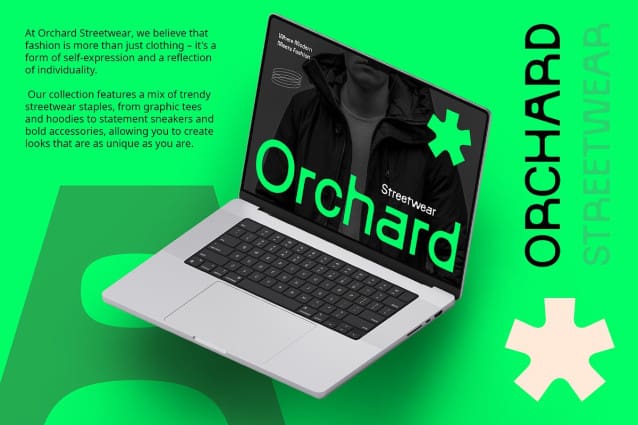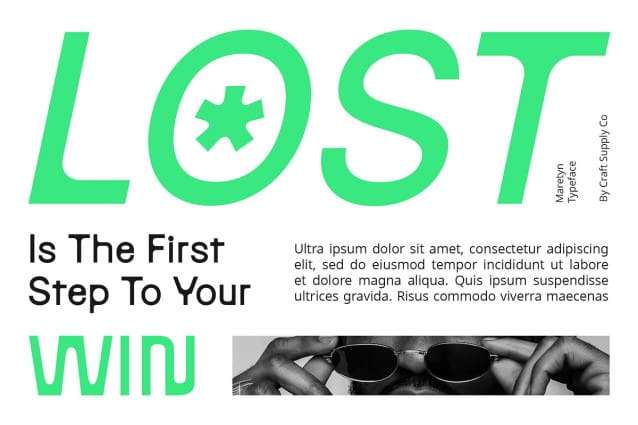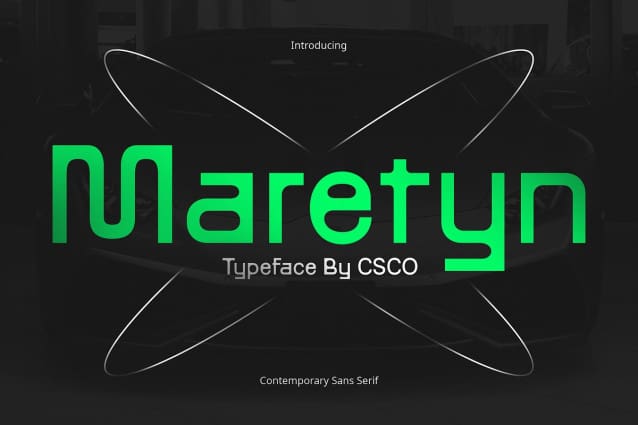
Maretyn Font
Maretyn Font – Contemporary Sans Serif: Embodying Modern Simplicity. Versatile Sans Serif Typeface Maretyn presents a contemporary take on the timeless sans serif typeface, blending modern simplicity with classic functionality. Its clean lines and balanced proportions make it suitable for both text and display purposes, ensuring readability and style across various design projects.
Contemporary Shape for Modern Appeal With its contemporary shape, Maretyn exudes a sense of modernity and sophistication. The font’s sleek and refined appearance adds a touch of elegance to any design, making it ideal for both digital and print applications.
Perfect Balance of Form and Function Maretyn Font strikes the perfect balance between form and function, offering clarity and legibility without compromising on visual impact. Whether used for body text in editorial layouts or headlines in branding materials, Maretyn delivers a polished and professional look every time.
Ideal for Text and Display Usage From paragraphs to titles, Maretyn Font excels in both text and display settings. Its versatile design adapts seamlessly to various sizes and applications, providing designers with a reliable typographic solution for a wide range of projects.
Enhance Your Designs with Modern Simplicity Elevate your designs with the timeless appeal of Maretyn Font. Whether crafting minimalist websites, elegant print collateral, or striking branding materials, Maretyn empowers designers to create with confidence, delivering a seamless blend of contemporary style and timeless simplicity.